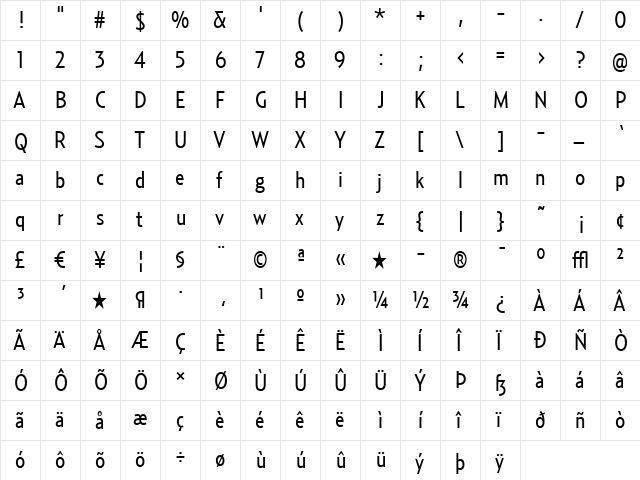
RelayCond-Regular Regular
| Designer | Cyrus Highsmith |
Design Context for RelayCond-Regular Typeface
RelayCond-Regular takes a measured approach to typography — its balanced proportions and neutral character make it a reliable workhorse for both digital and print work. Its narrow stance lets it pack a punch even in space-constrained designs.